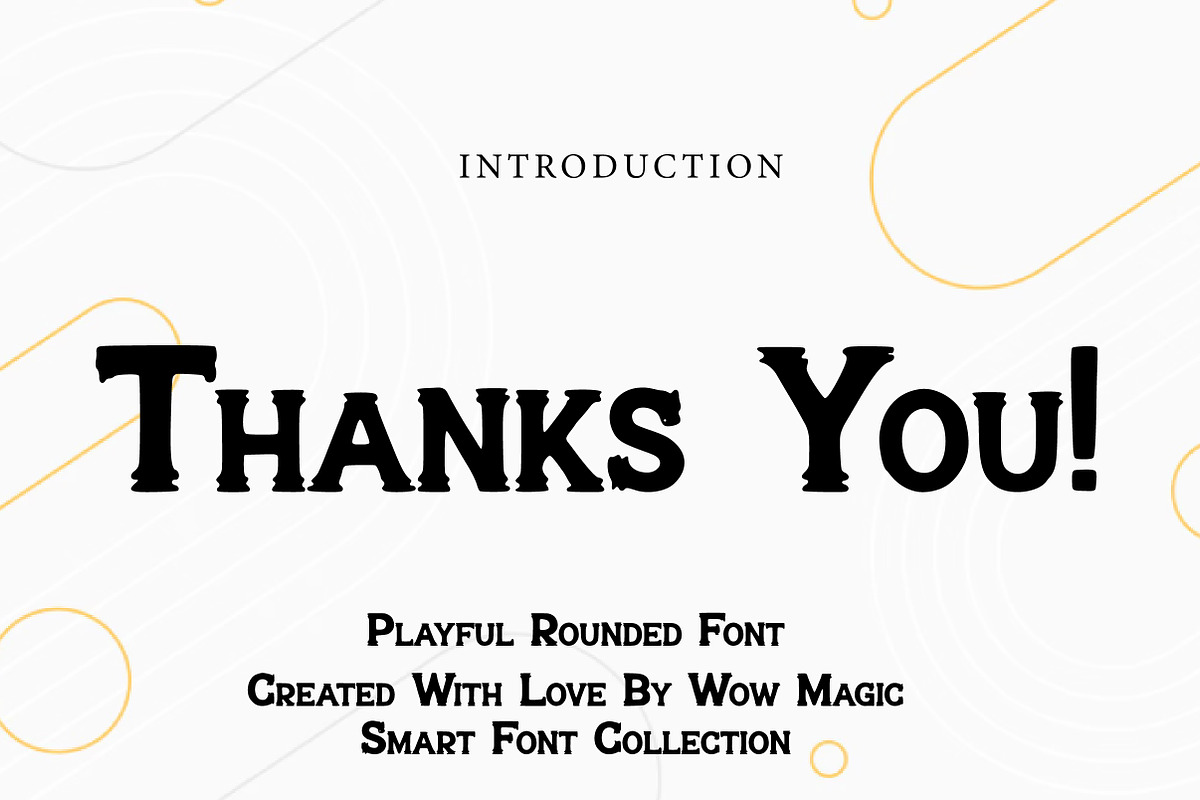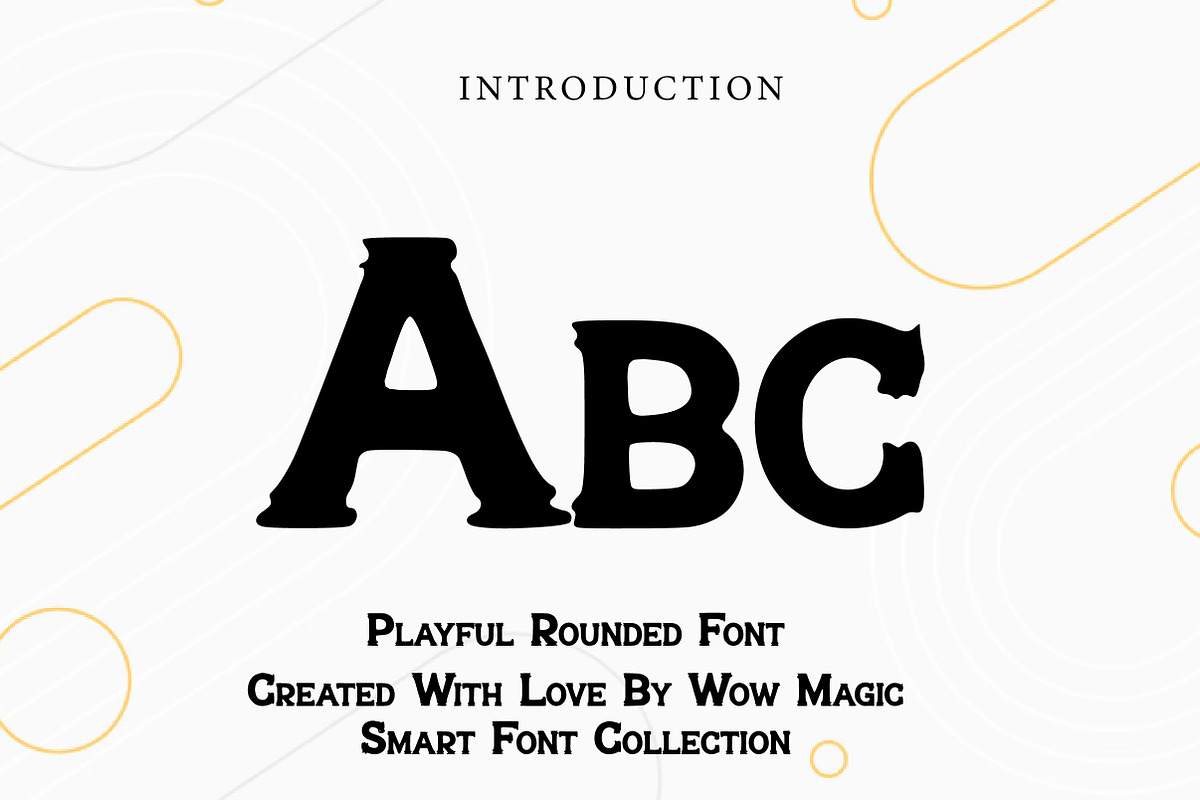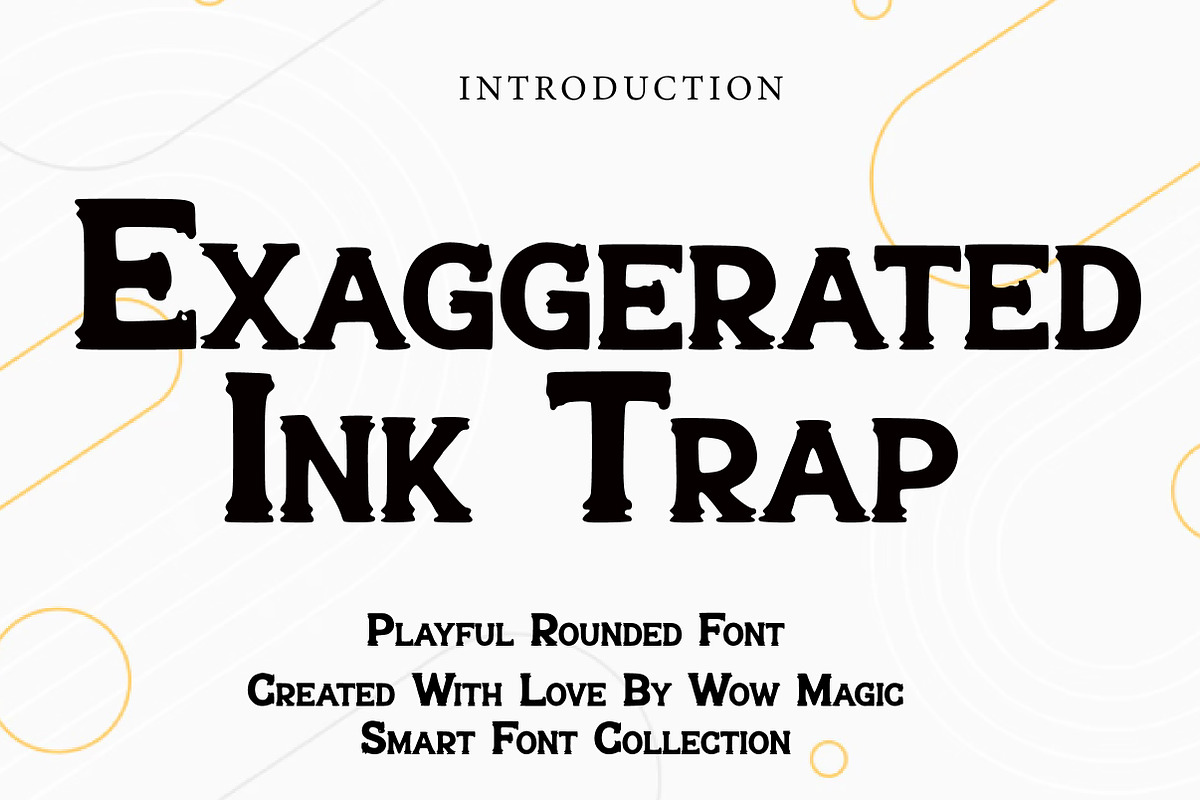
Exaggerated Ink Trap
Exaggerated Ink Trap is a powerful display serif typeface designed with striking exaggerated ink trap details that add personality and visual impact. The bold strokes, sharp serifs, and vintage-inspired structure create a distinctive typographic style that stands out in both print and digital designs.
This font works beautifully for headlines, logos, posters, branding, editorial layouts, packaging, and apparel designs. Its strong letterforms and decorative ink trap shapes give your typography a bold, stylish, and memorable appearance.
Whether you're designing brand identities, magazine titles, social media graphics, or creative posters, Exaggerated Ink Trap adds a professional and eye-catching typographic presence to your work.
Logos & Branding
Posters & Headlines
Editorial & Magazine Titles
Apparel & Merchandise